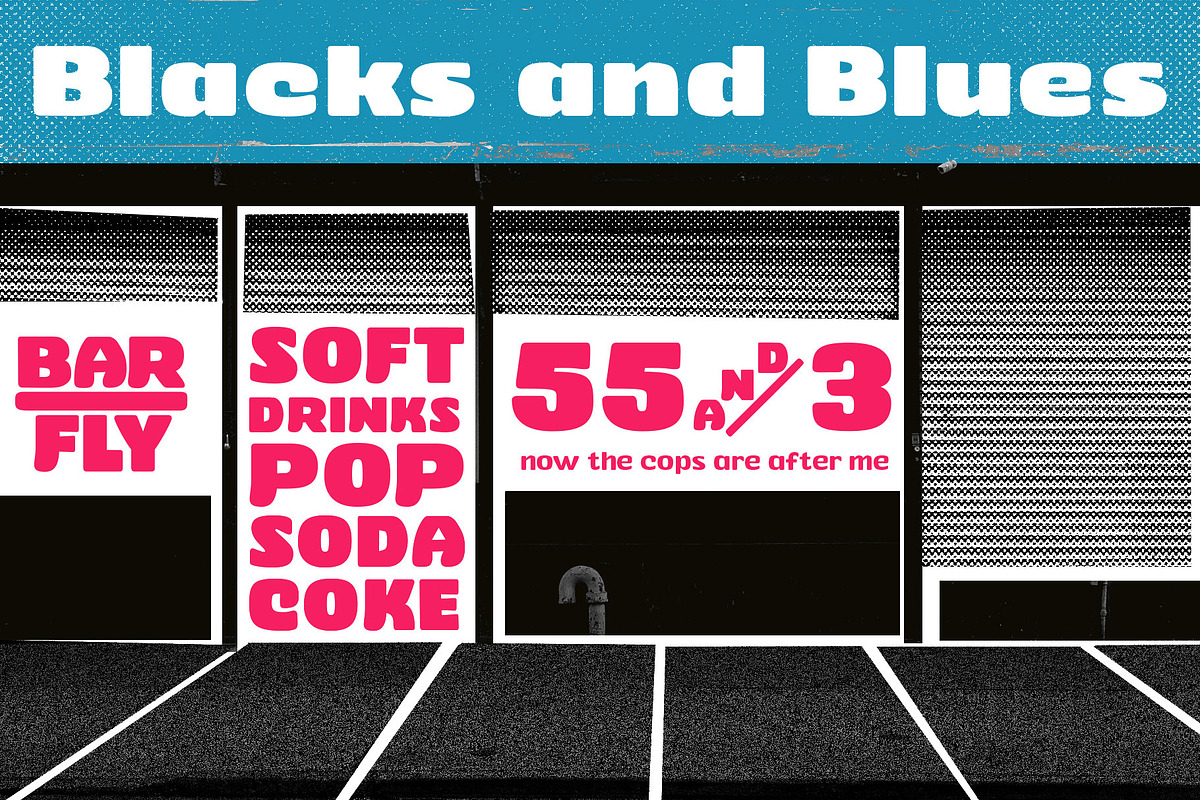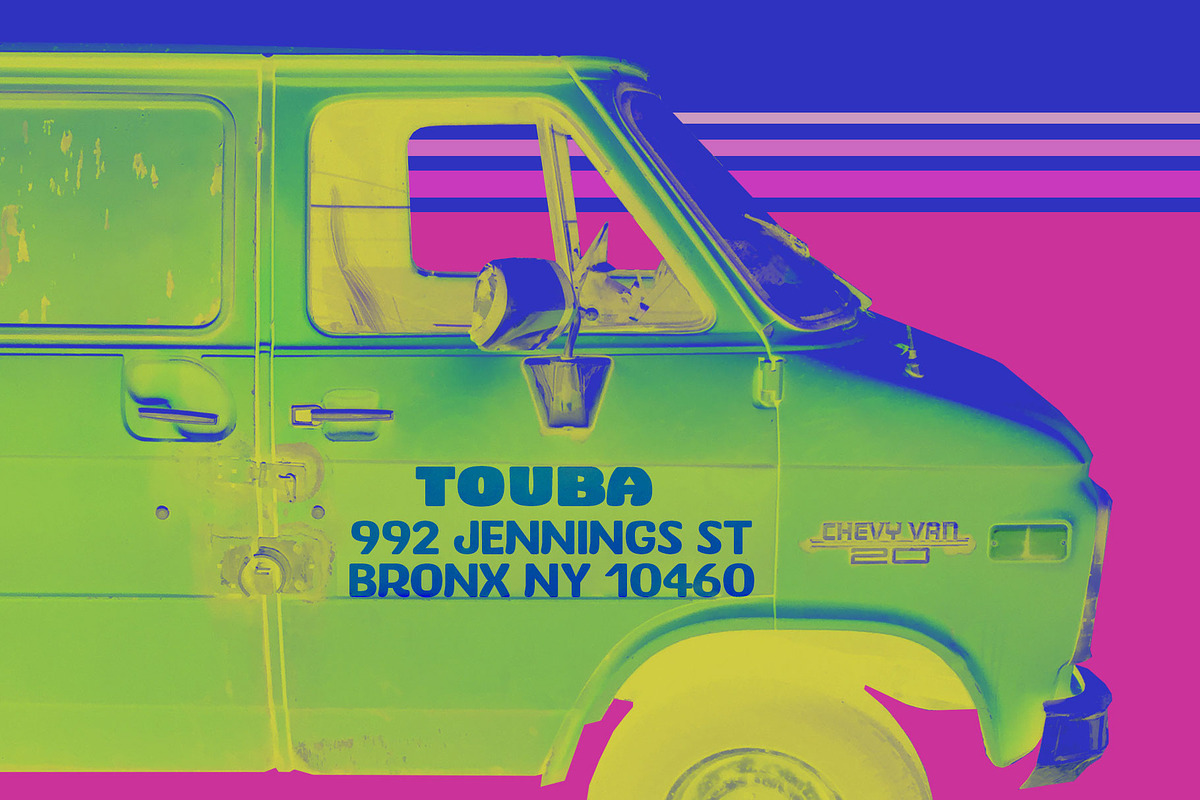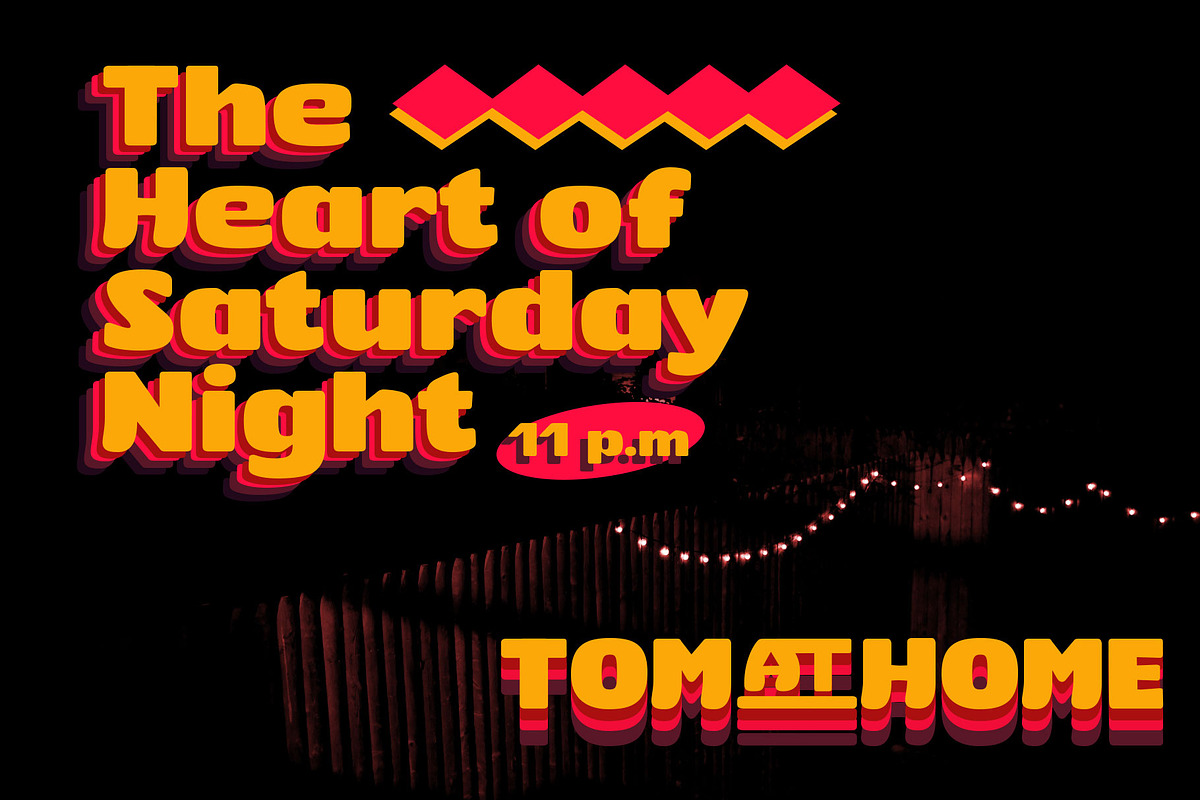
Stubby Ultrabold
This is Stubby Ultrabold, it's the most flavored weight from the family Stubby.
Important! As you can see, the first image is featuring the font Stubby Ultrabold, the following images are not using only the Ultrabold weight but also the whole type family.
Stubby Ultrabold is a display type inspired by the vernacular landscape. It was made for titles, headlines and also packages, posters and everything that provide space for a rude, fat and widish type. Nonetheless it can be a type for text if you are looking for an informal shape, with eleven styles mixing from a narrowed thin to a sloppy ultrabold. Stubby has a tight spacing looking to fit in squeeze places, trying to simulate some real spirit of the botecos from Brazil, always serving very cold beer in stubby brown bottles.